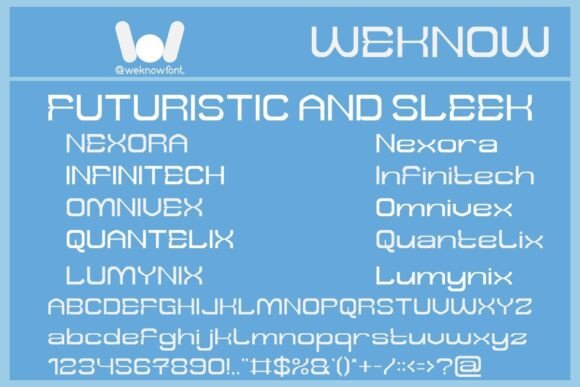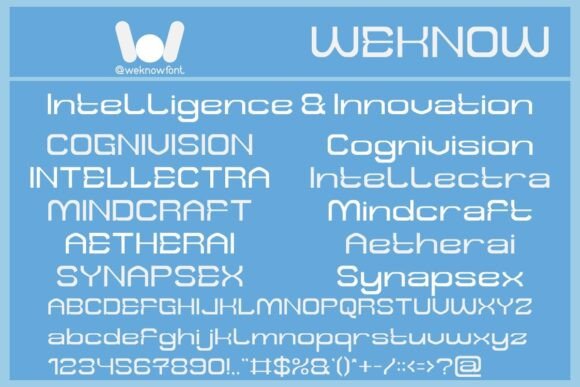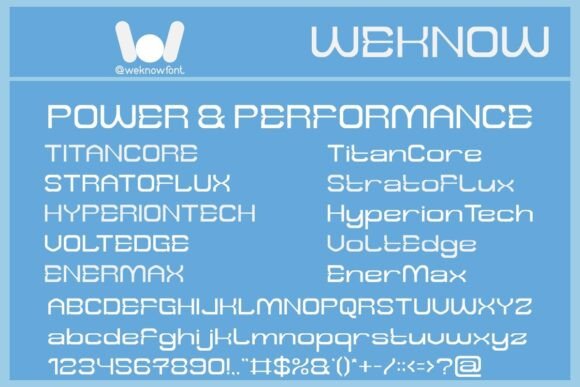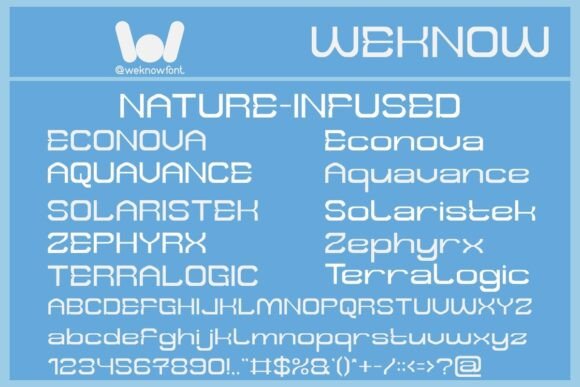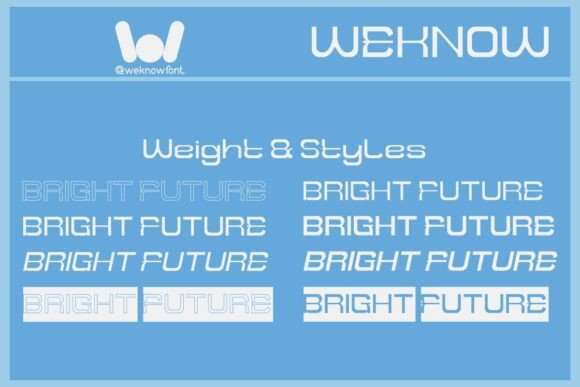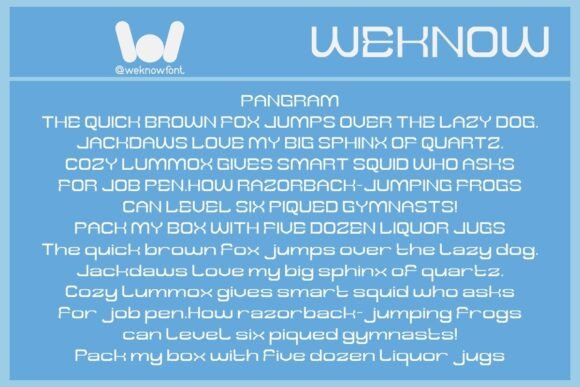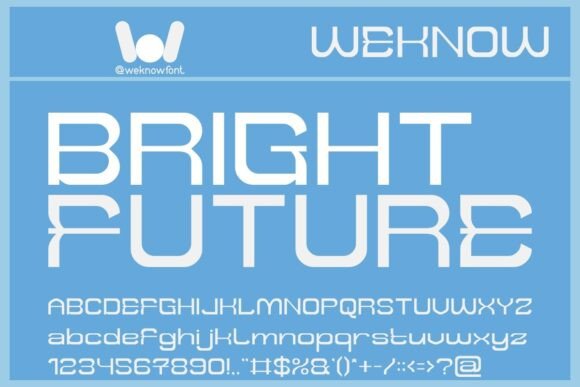
Unleash the Power of Bright Future Font: Your Gateway to Futuristic Creativity
In the realm of typography, few fonts manage to capture the essence of a futuristic world as effectively as the Bright Future font. This techno-futuristic typeface is not just a font; it’s an invitation to explore the uncharted territories of creativity, where playfulness meets geometric precision. Whether you’re a designer looking to revamp a logo, a crafty individual working on a DIY project, or a professional in the music, movie, or gaming industry, Bright Future is poised to elevate your work into a realm of extraordinary visual appeal.
The Essence of Bright Future Font
Bright Future font is an exceptional choice for anyone aiming to infuse their projects with a sense of futurism and innovation. Its design is meticulously crafted to blend the lines between technology and creativity, making it versatile enough for a vast range of applications. From corporate identities seeking a modern edge to artistic projects that demand a unique flair, Bright Future stands out as a beacon of inspiration.
Applications Across Industries
The versatility of Bright Future font is one of its most compelling attributes. Here are some of the key areas where this font can make a significant impact:
• Logo Design: Transform your brand’s logo into a futuristic emblem that captures the essence of innovation and forward-thinking.
• Headlines and Titles: Craft striking headlines for magazines, books, or digital content that demand attention and convey a sense of futurism.
• Corporate Identity: Infuse your company’s visual identity with a modern, techno-futuristic vibe that sets you apart from the competition.
• Apparel Industry: Design t-shirts, hoodies, and other apparel items with a font that speaks to a younger, more vibrant audience.
• Entertainment: Elevate your music, movie, or game projects with a font that promises an out-of-this-world experience.
• Print Art: For artists who love working with print, Bright Future is perfect for magazines, books, comics, and any other printed material.
• Digital Platforms: Make your YouTube videos, Instagram posts, and website content stand out with a font that is both fun and futuristic.
Why Choose Bright Future Font?
Choosing Bright Future font for your project comes with numerous benefits:
• Unique Aesthetic: Its geometric precision and playful curves offer a unique aesthetic that is hard to find elsewhere.
• Versatility: It can be used across various platforms and industries, making it a valuable addition to any designer’s toolkit.
• Easy to Read: Despite its futuristic design, the font maintains readability, ensuring your message is conveyed effectively.
• Customization: The font can be customized to fit your project’s specific needs, allowing for creative freedom.
Tips for Using Bright Future Font
To maximize the impact of Bright Future font, consider the following tips:
• Mix and Match: Don’t be afraid to experiment with different sizes, colors, and styles to create visual hierarchy and interest.
• Pair Wisely: When pairing Bright Future with other fonts, choose those that complement its futuristic vibe without clashing.
• Consider Context: Ensure the font’s style aligns with the overall theme and tone of your project.
Bright Future font is more than just a typeface; it’s a creative tool designed to bring your projects into the future. With its perfect blend of playfulness and geometric precision, it offers endless possibilities for designers, crafters, and professionals across various industries. Whether you’re looking to make a bold statement or simply add a touch of futurism to your work, Bright Future is the portal to an inspiring sci-fi-themed creativity. Embrace the future of design today with Bright Future font.